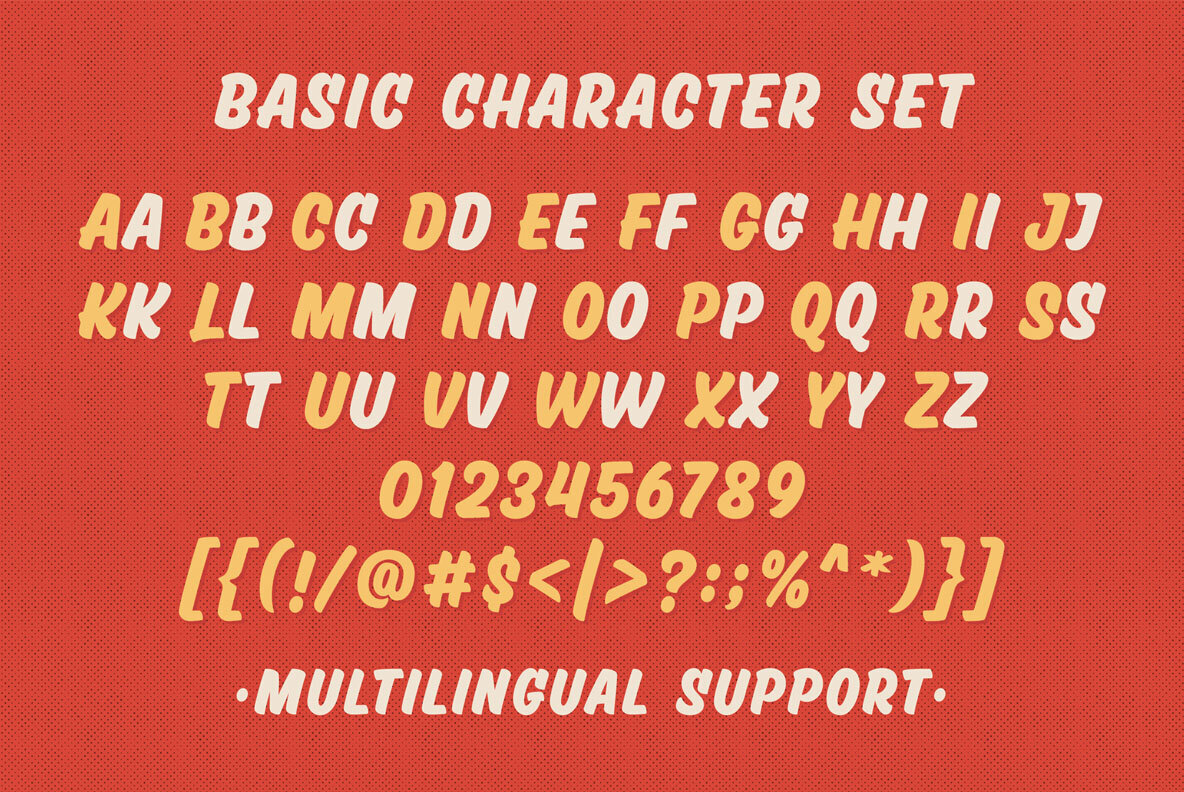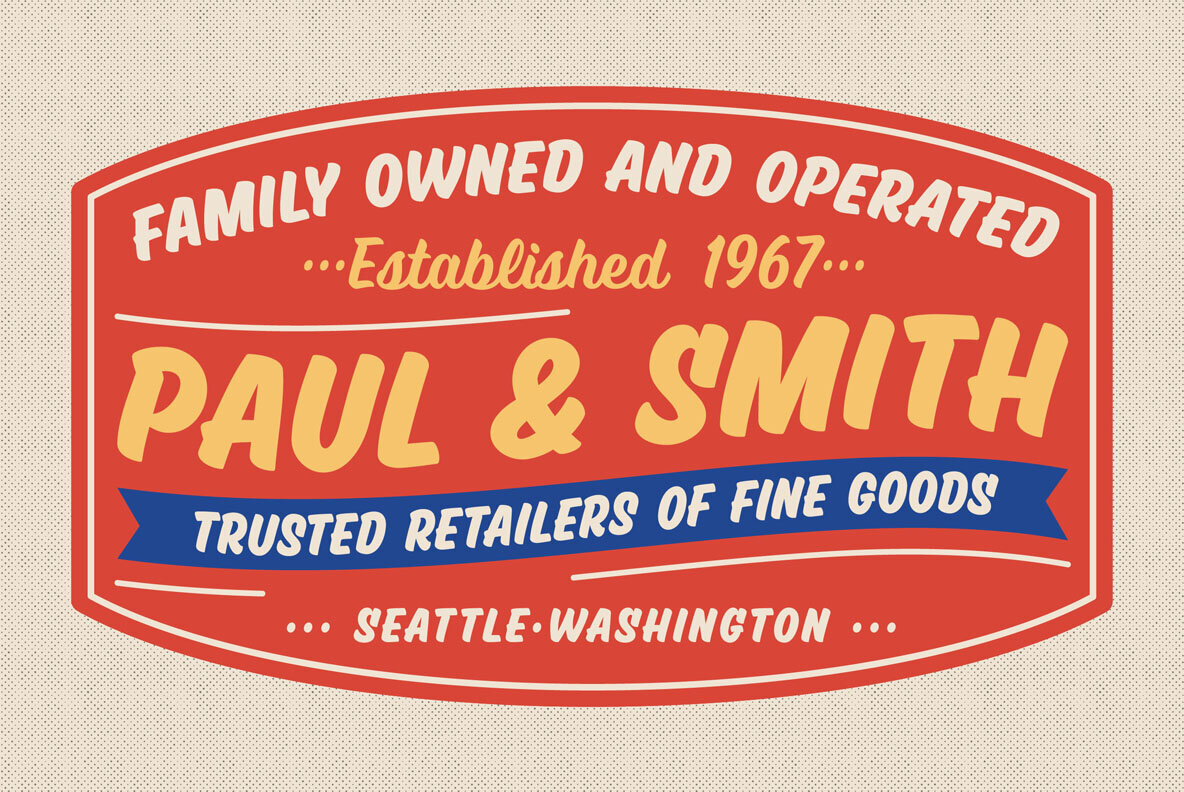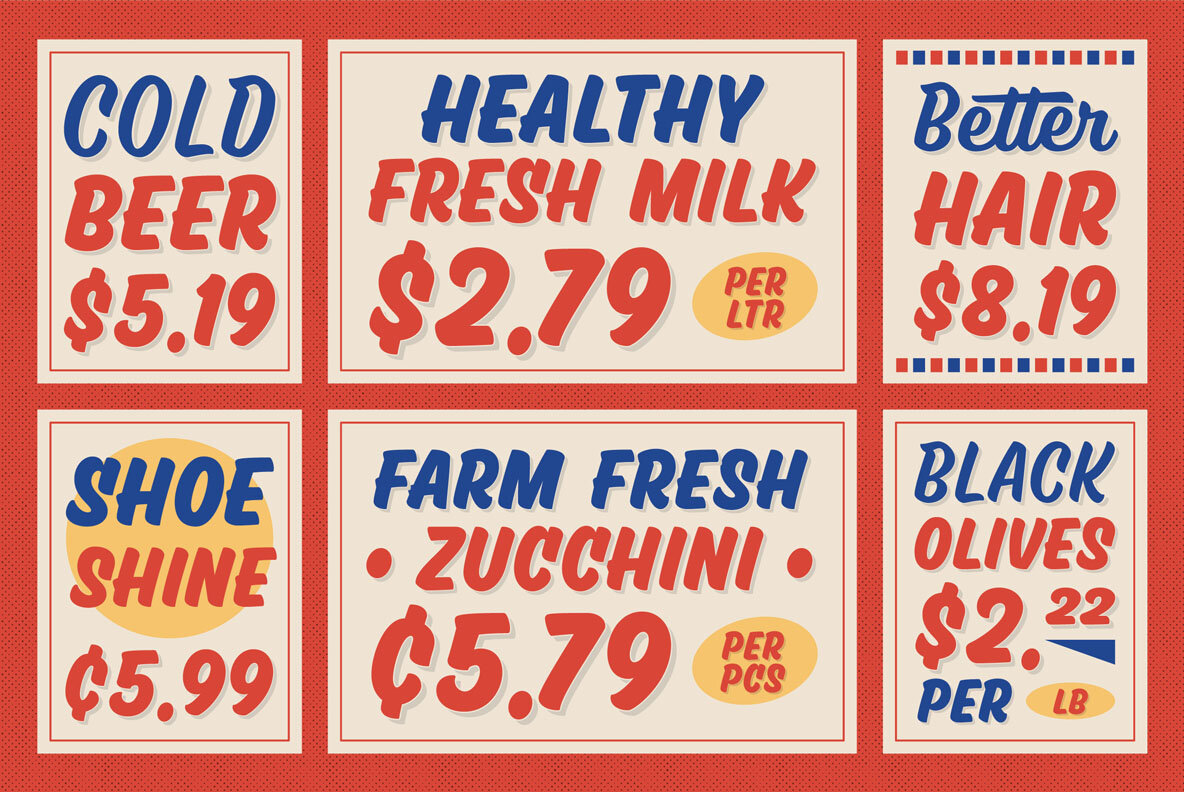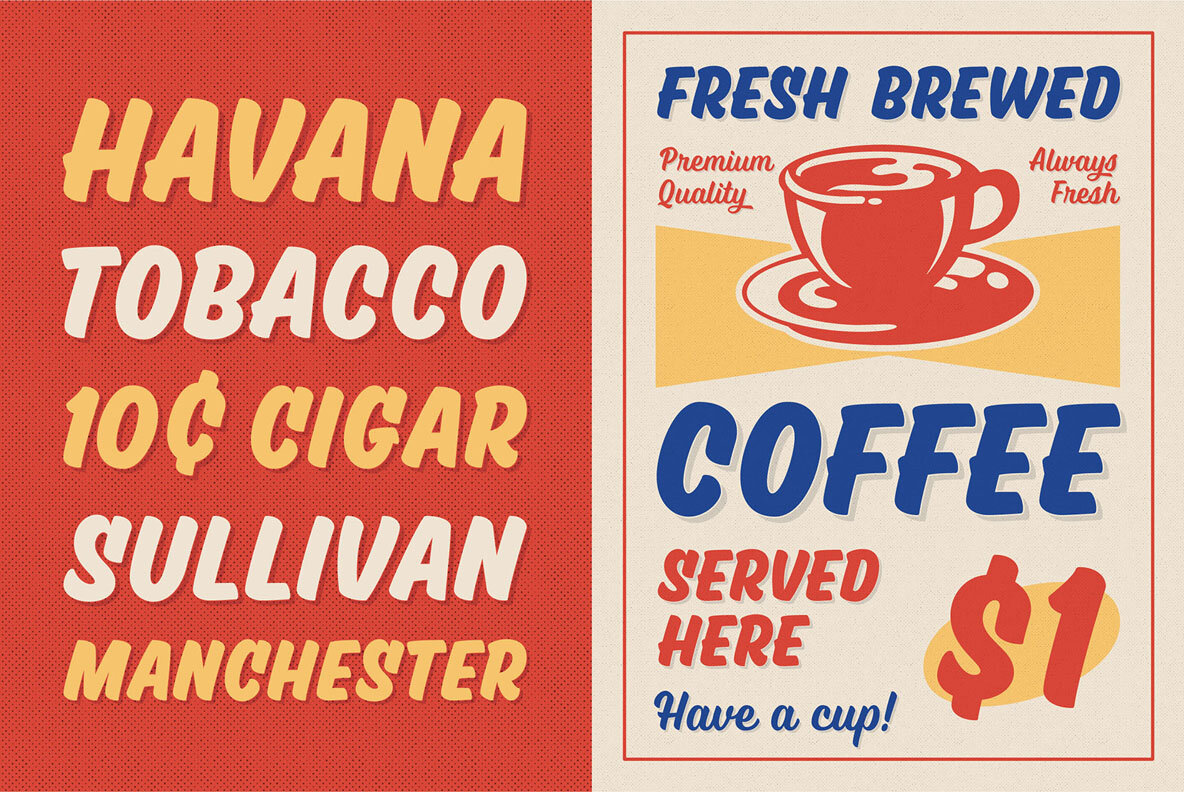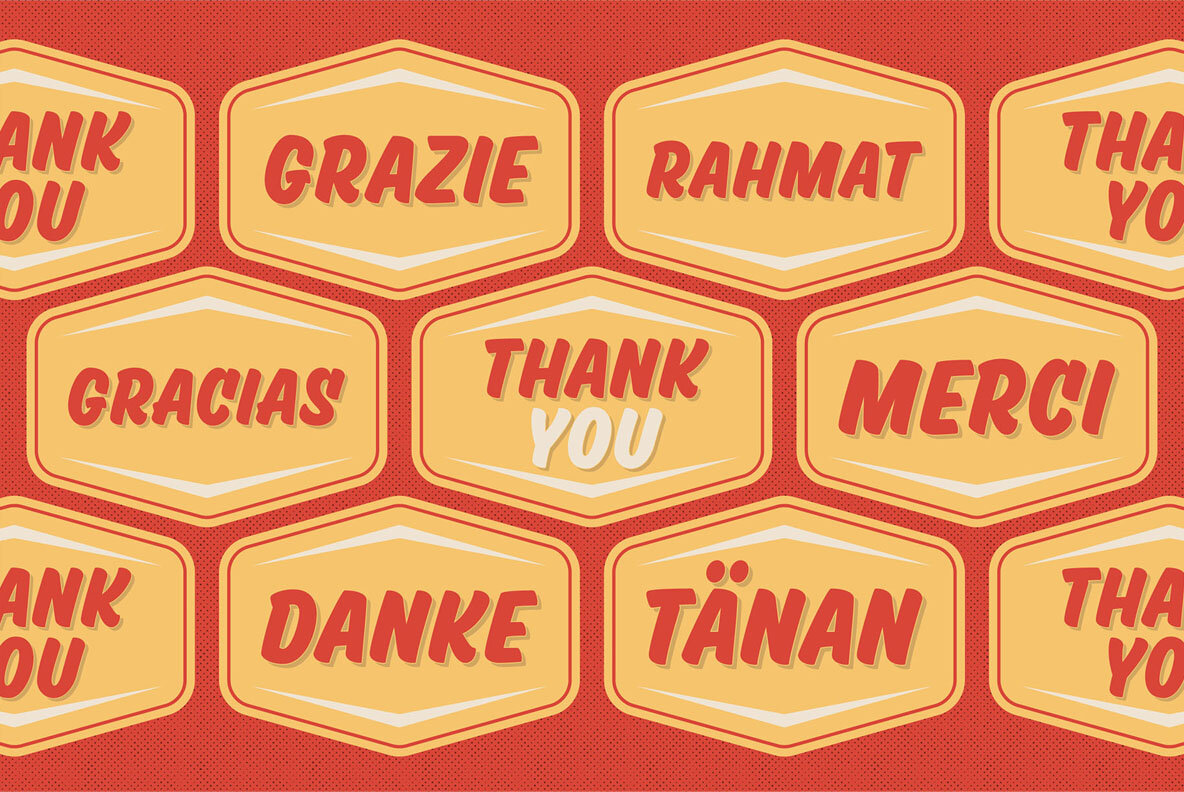
Pinsher Font
Introducing Pinsher, a sign painting-inspired font that pays homage to the hand-painted paper signs commonly found in grocery stores from the 1940s to the present day. Complete with an additional shadow font, Pinsher allows you to effortlessly create beautiful combinations and infuse your projects with a vintage touch.
Key features of Pinsher include:
Uppercase and lowercase letters
Numbers and punctuation
Alternate characters
Multilingual support